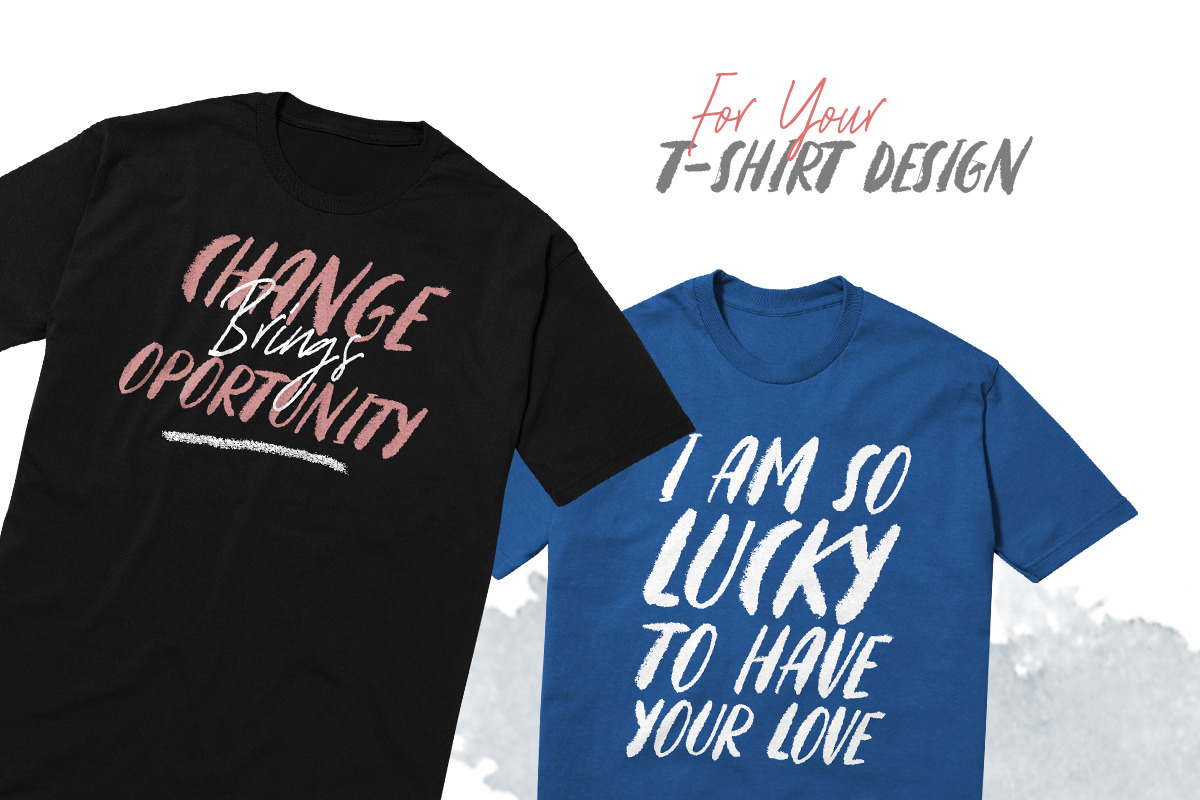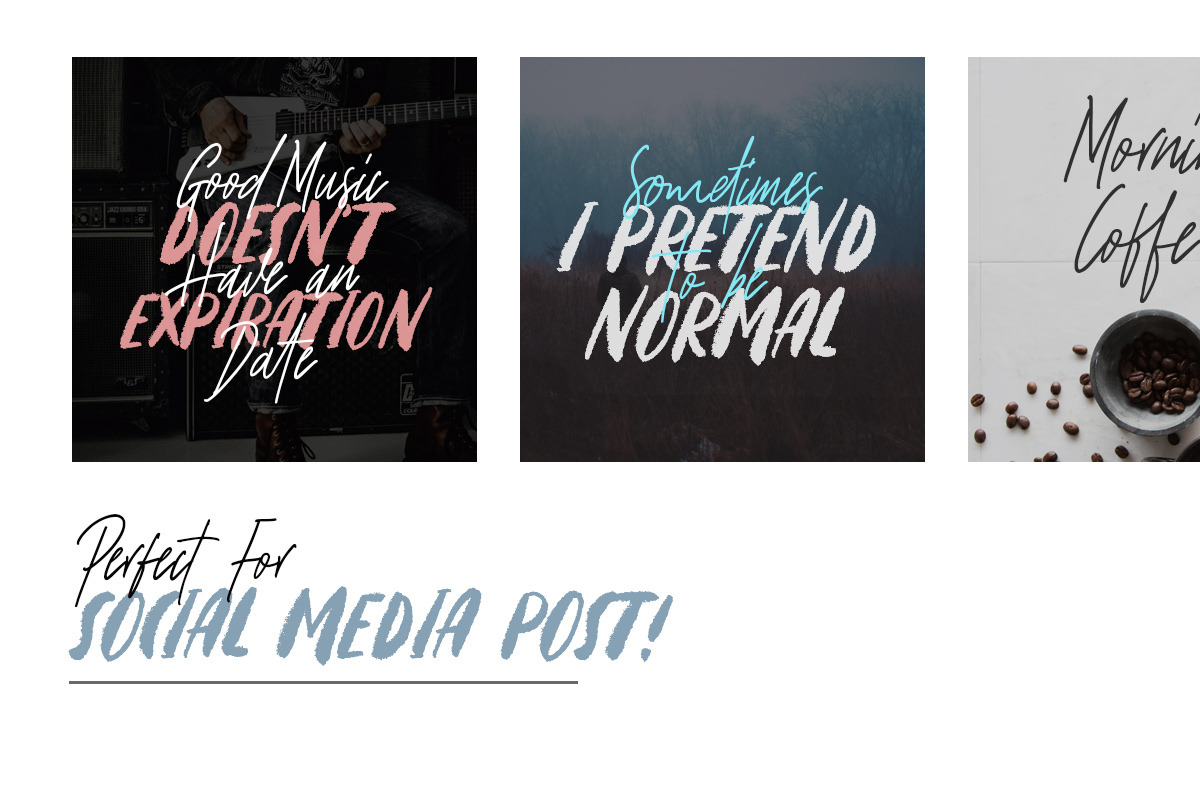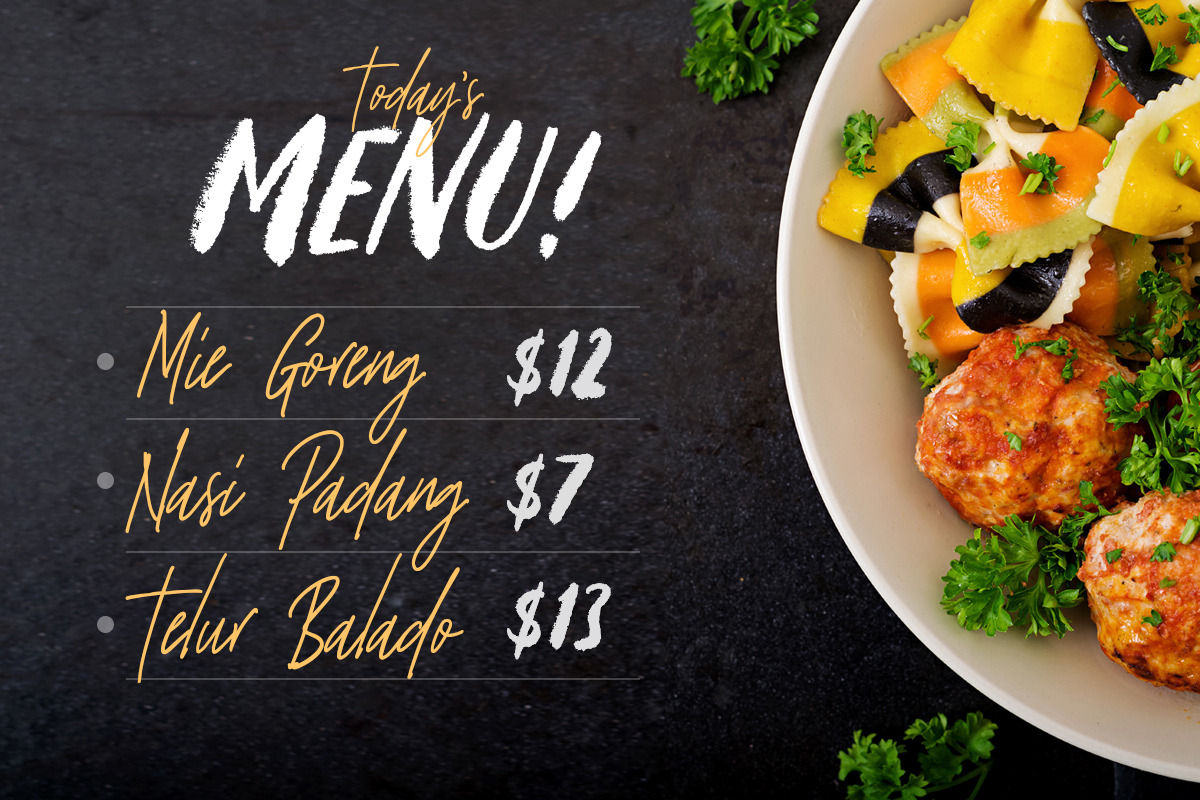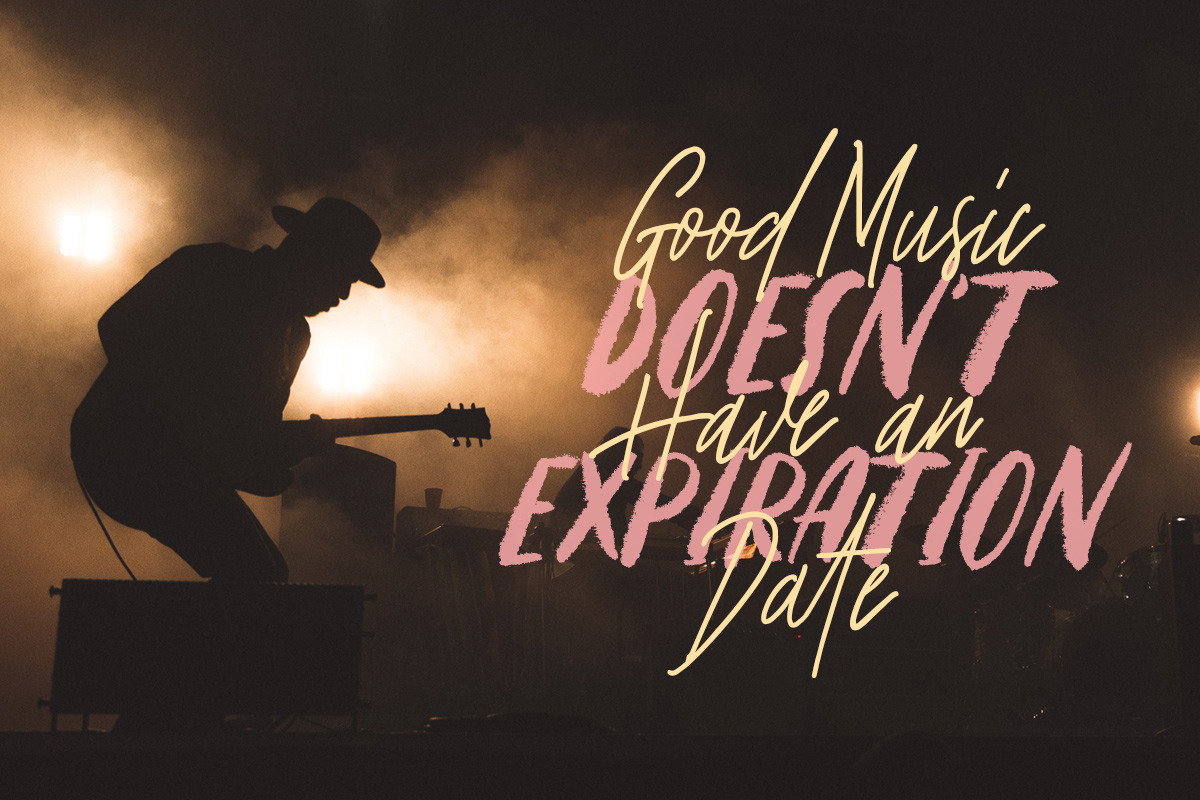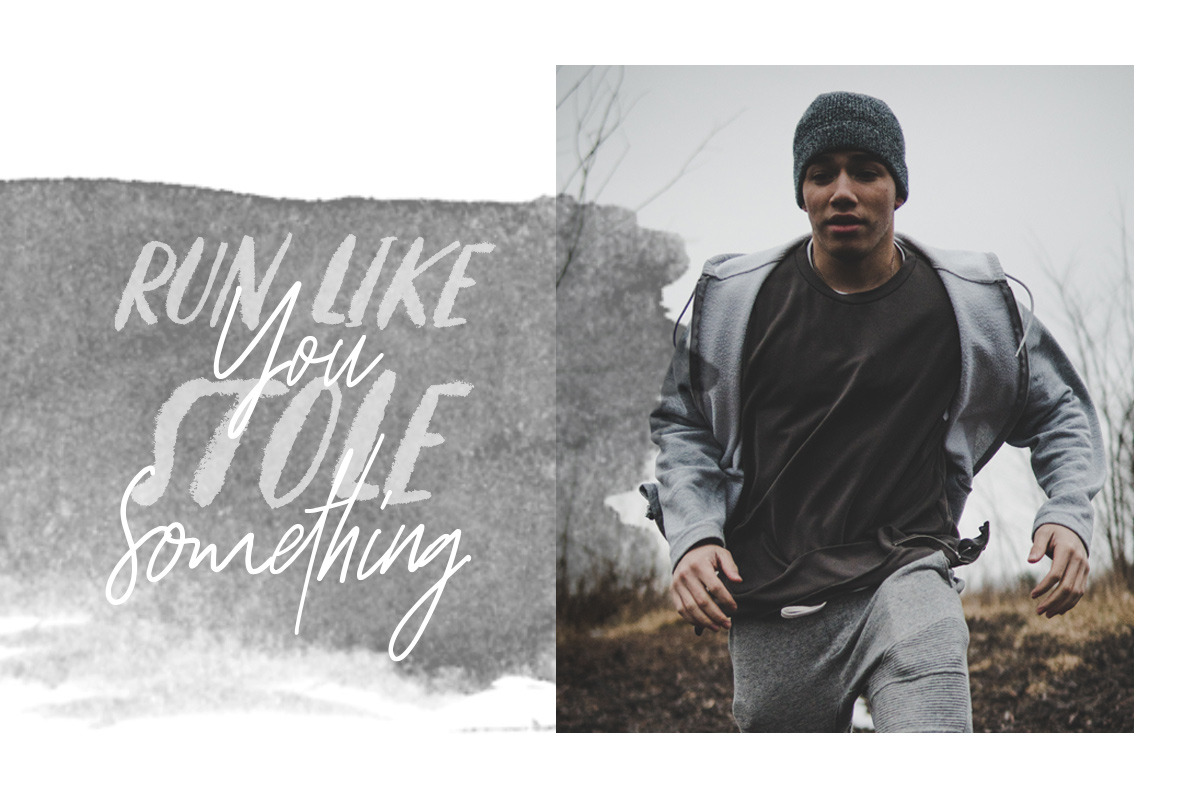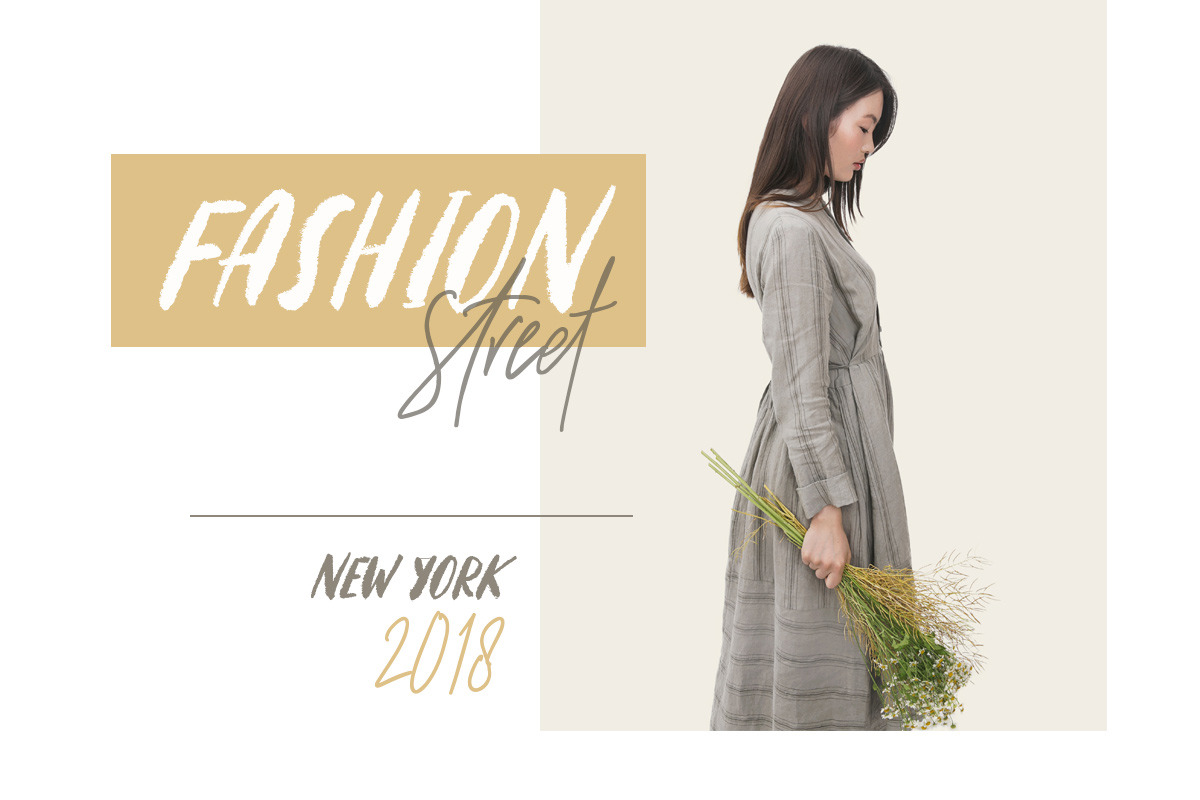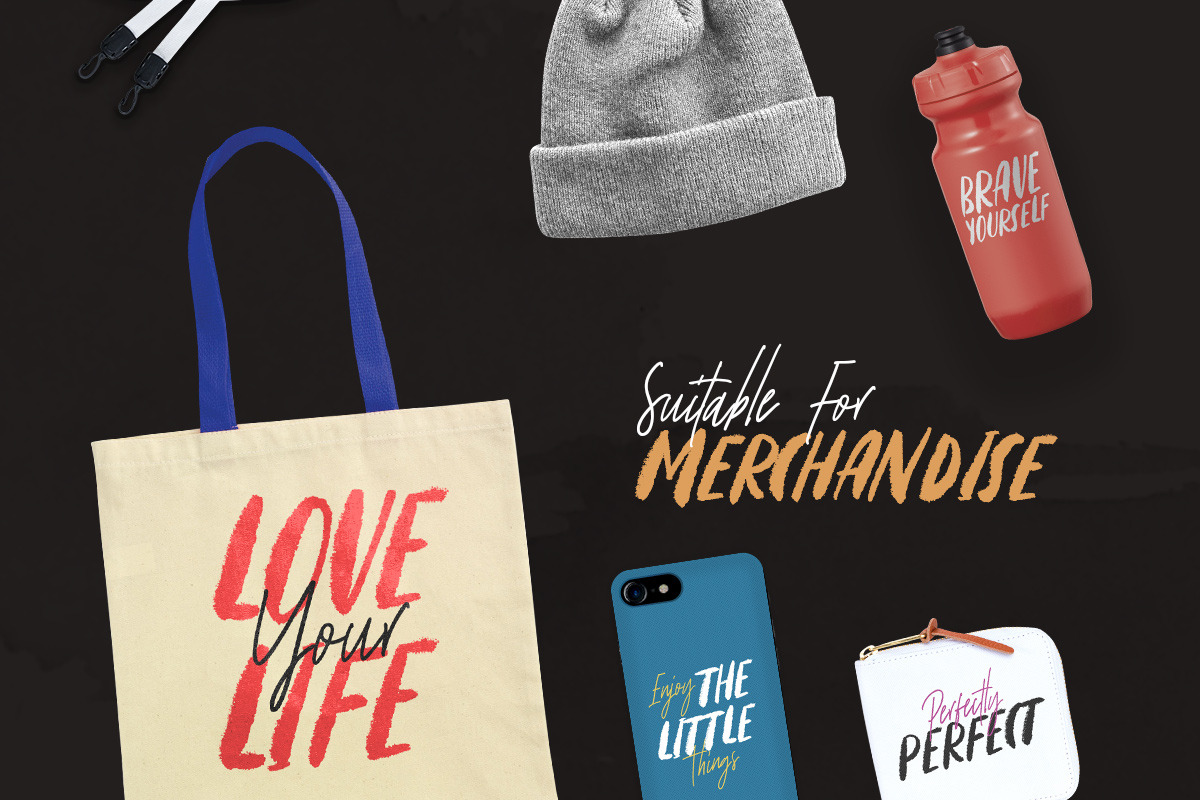
Strong Heart - Font Duo
Introducing my another font duo, Strong Heart!
This is my newest font, I made two very different style that will compliment each other. Strong Heart contain two font, Script with lovely vibes, and Caps with strong form. The script also comes with ligatures that will make the signature font more real. This fonts are totally applicable in any project, like your social media post, merchandise, signature, etc.
- Script Ligatures
- Number and Symbol